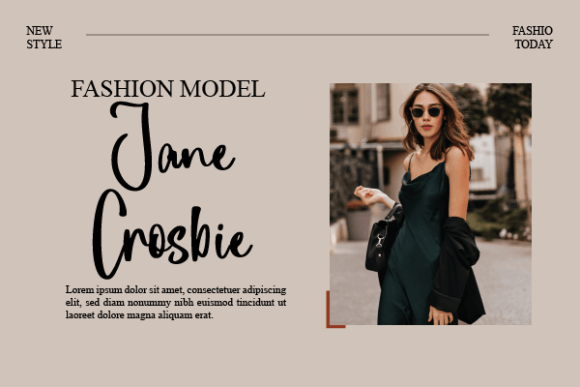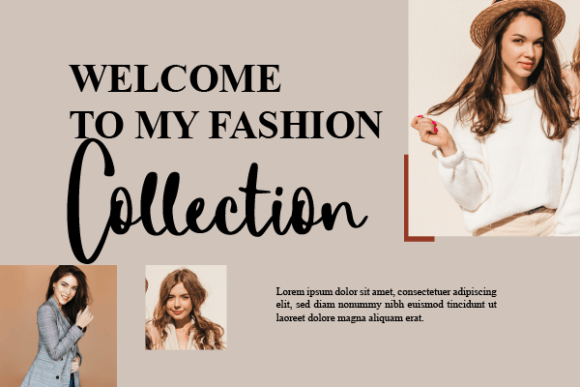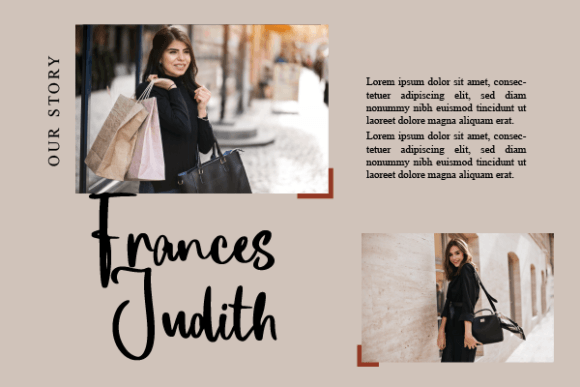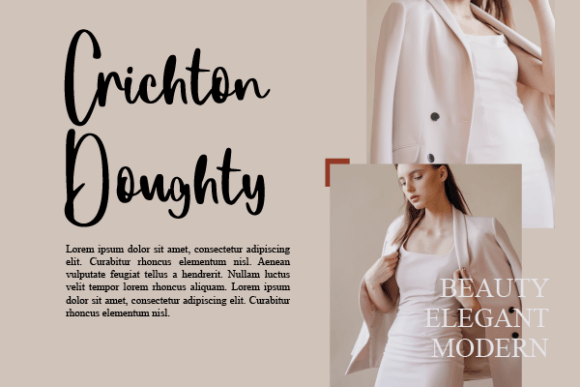
About Challenger Burnett
Challenger Burnett is a magical script font carefully created with a touch of elegance. Whether you’re looking for fonts for Instagram or calligraphy scripts for DIY projects, this font will turn any creative idea into a true piece of art!